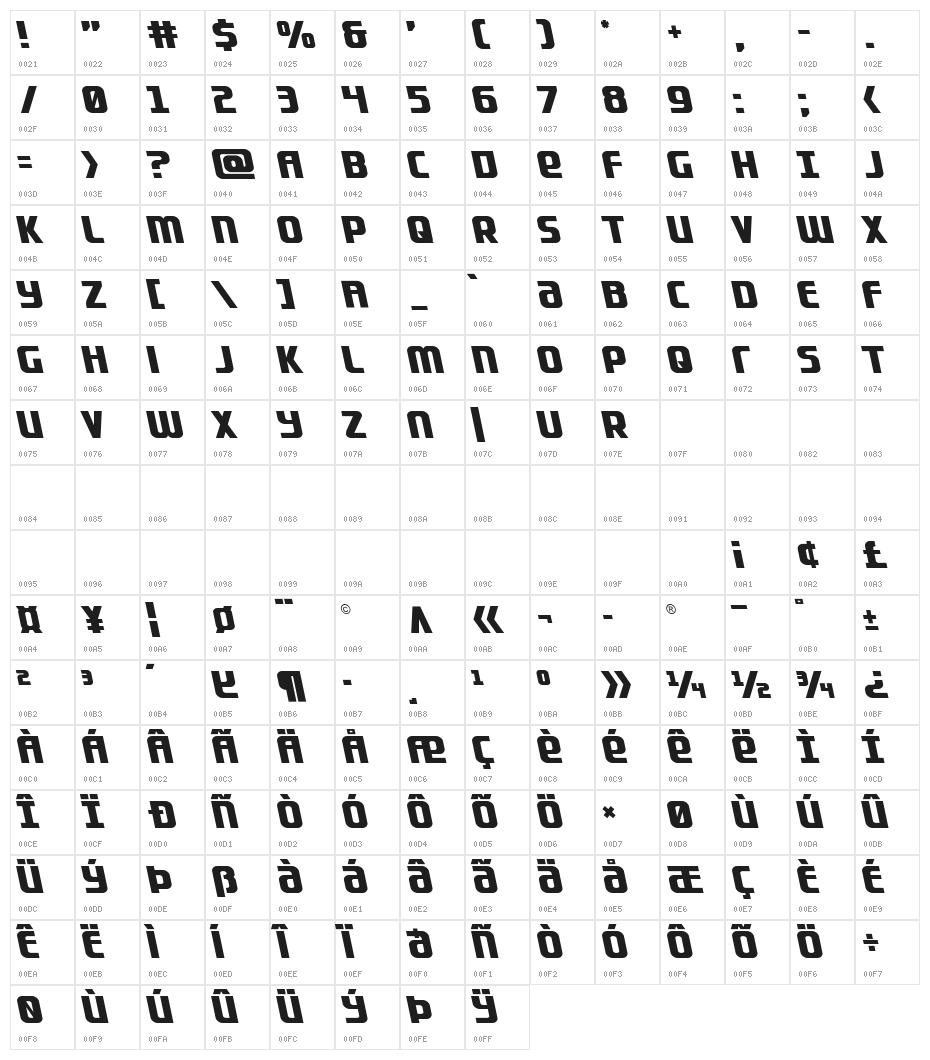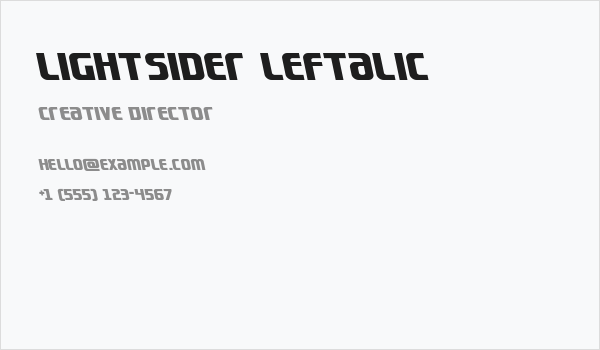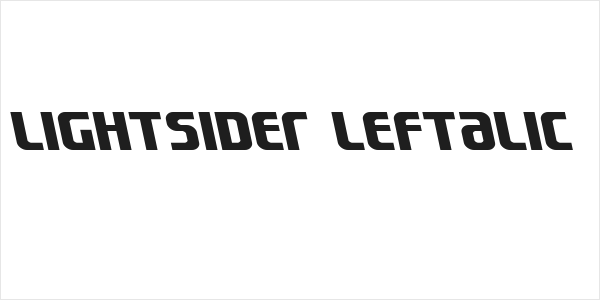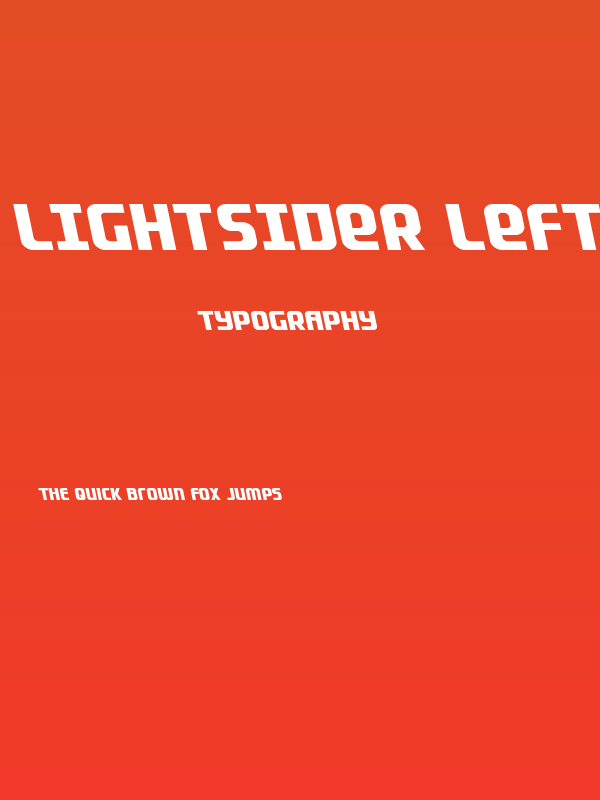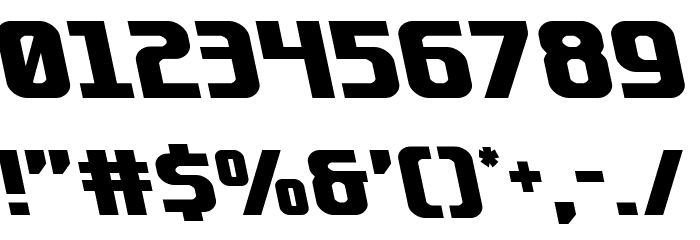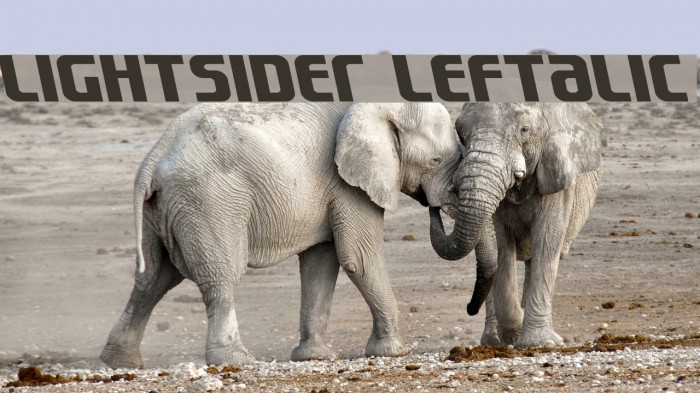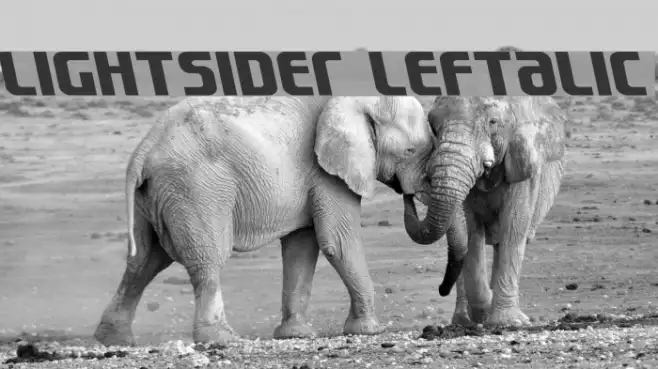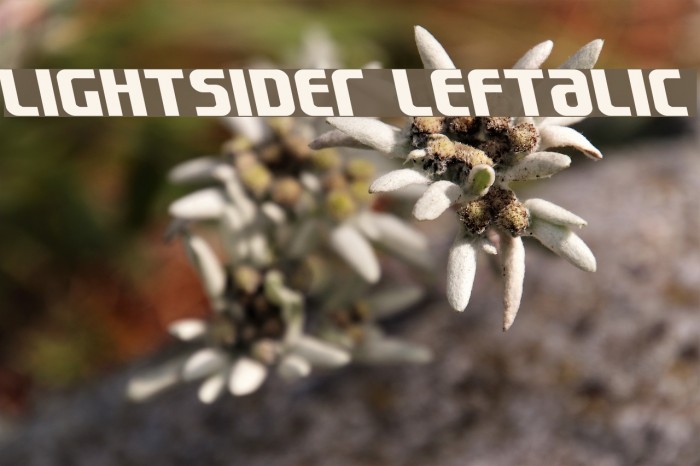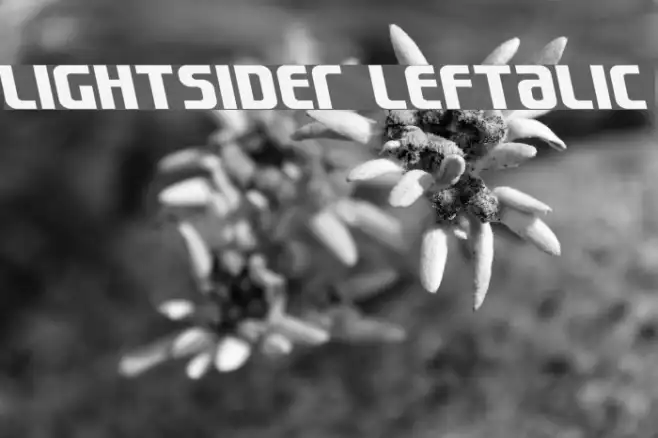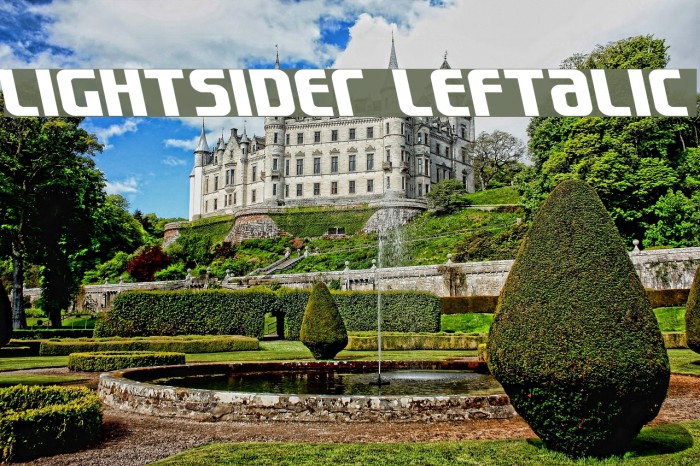
Lightsider Leftalic Font
Lightsider Leftalic Description
This font features a bold and dynamic style with a distinct slant to the left, giving it a unique and energetic appearance. The characters are robust and have a strong presence, making them ideal for attention-grabbing designs. The uppercase and lowercase letters maintain a consistent width, contributing to a uniform look. Numbers and special characters are designed with the same boldness, ensuring visual harmony across all elements. The font's geometric shapes and clean lines make it suitable for modern and futuristic themes.
| Proposed Projects | Ideal for sports branding, dynamic posters, modern advertisements, and futuristic designs. |